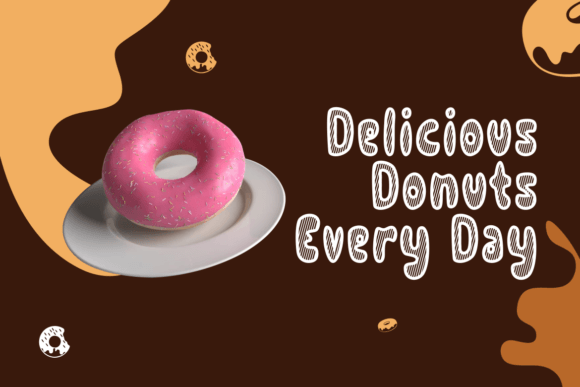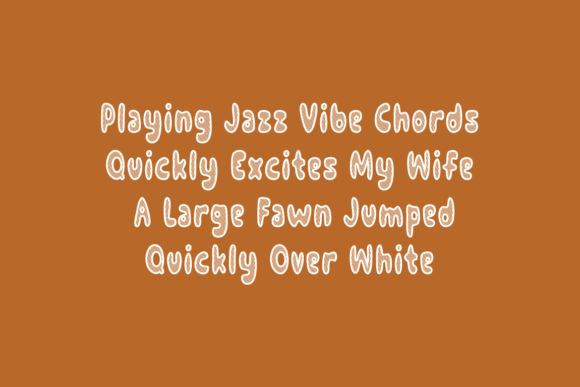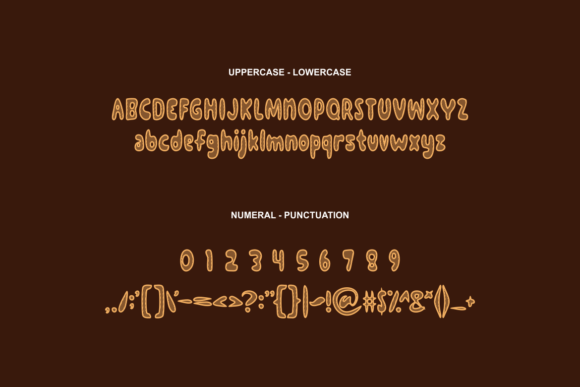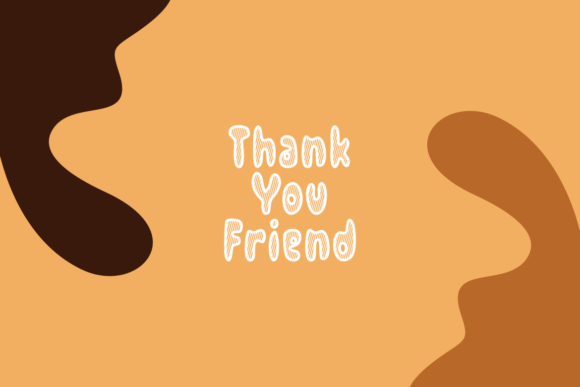
Introduction to Donut Strep Font Font
Fonts play a crucial role in design, and the Donut Strep Font font is a typeface that brings both character and versatility to any project. Whether you’re working on a branding project, a website, or a print design, the Donut Strep Font font offers a unique style that can elevate your work.
Donut Strep is a cute and charming display font.
Whimsical and a bit quirky, this font will brighten up each of your designs Add it confidently to your projects, and you will love the results.
Key Features of Donut Strep Font Font
Why Choose Donut Strep Font Font?
The Donut Strep Font font is more than just a typeface – it’s a design tool that helps you communicate your message with style and clarity. Its unique character set and versatile design make it suitable for a wide range of applications, from elegant invitations to bold headlines.
With its carefully crafted letterforms and balanced proportions, the Donut Strep Font font ensures readability and visual appeal across all mediums.
What makes Donut Strep Font font special?
The Donut Strep Font font stands out with its unique design, exceptional readability, and versatility across various design applications.